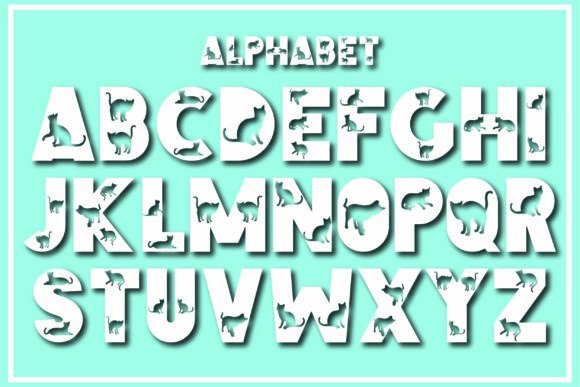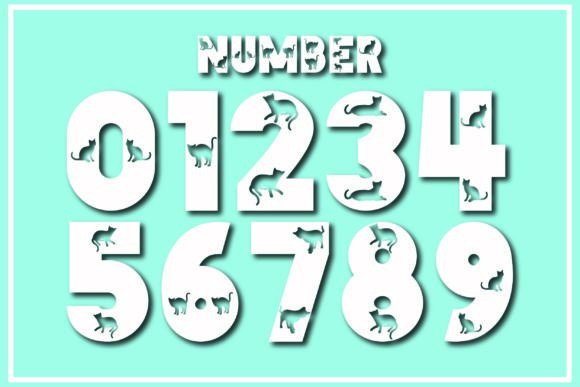
Introducing Cat Font: The Purrfect Addition to Your Design Projects
Are you looking for a font that adds a touch of playfulness and friendliness to your designs? Look no further than Cat Font, a cool and decorative font that’s sure to delight. With its whimsical and charming appearance, Cat Font is the perfect choice for cartoon-related designs, children’s games, and any creative project that requires a lovely touch.
What Makes Cat Font So Special?
Cat Font is a unique and eye-catching font that’s designed to bring a smile to your face. Its distinctive lettering style, which features bold lines and cute curves, gives it a friendly and approachable feel that’s hard to resist. Whether you’re creating a logo, a poster, or a digital graphic, Cat Font is sure to add a touch of personality and whimsy to your design.
Perfect for Cartoon-Related Designs
If you’re working on a project that’s related to cartoons, comics, or animation, Cat Font is an excellent choice. Its playful and imaginative style is perfectly suited to these types of projects, and it’s sure to help you create a design that’s both fun and engaging. From character designs to title sequences, Cat Font is the perfect way to add a touch of cartoon charm to your work.
A Great Choice for Children’s Games and Activities
Cat Font is also an excellent choice for children’s games, activities, and educational materials. Its cute and colorful style is sure to appeal to kids, and its clear and easy-to-read lettering makes it perfect for use in games, puzzles, and other interactive activities. Whether you’re creating a worksheet, a game board, or a children’s book, Cat Font is a great way to add a touch of fun and personality to your design.
More Than Just a Font: A Design Essential
Cat Font is more than just a font – it’s a design essential that’s sure to become a staple in your design toolkit. Its versatility and flexibility make it perfect for use in a wide range of design projects, from digital graphics to print materials. And with its easy-to-use format, you can quickly and easily incorporate Cat Font into your designs, saving you time and effort.
Key Features of Cat Font
- Unique and eye-catching design: Cat Font features a distinctive lettering style that’s sure to turn heads.
- Playful and friendly feel: Cat Font has a charming and approachable feel that’s perfect for designs that require a touch of personality.
- Perfect for cartoon-related designs: Cat Font is an excellent choice for cartoon-related projects, including character designs, title sequences, and more.
- Great for children’s games and activities: Cat Font is a great choice for kids’ games, puzzles, and educational materials.
Tips for Using Cat Font in Your Designs
Here are a few tips for using Cat Font in your designs:
- Use it sparingly: Cat Font is a bold and eye-catching font, so use it sparingly to avoid overwhelming your design.
- Pair it with other fonts: Cat Font pairs well with other fonts, so don’t be afraid to experiment with different combinations.
- Experiment with colors: Cat Font looks great in a range of colors, so don’t be afraid to get creative and try out different hues.
In conclusion, Cat Font is a cool and friendly decorative font that’s perfect for designers and crafters who want to add a touch of playfulness and personality to their designs. With its unique and eye-catching design, playful and friendly feel, and versatility, Cat Font is an excellent choice for a wide range of design projects. So why not give it a try and see how it can enhance your designs?